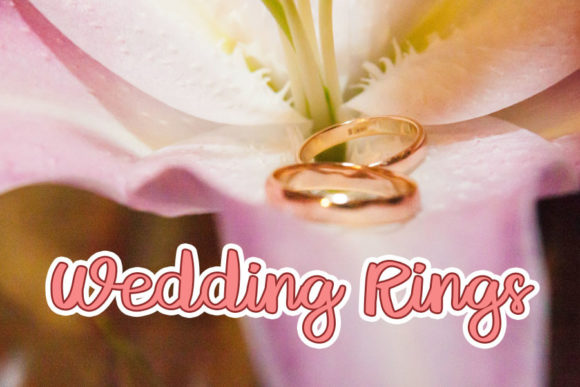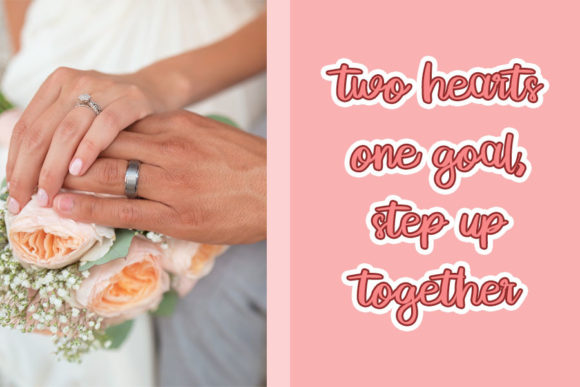
Love at First Sight Font
db-ku.com - Script & Handwritten -- Love at First Sight is a romantic and sweet calligraphy typeface with characters that dance along the baseline. It has a casual, yet elegant touch. It can be used for various purposes such as logos, wedding invitations, headings, t-shirts, letterhead, signage, labels, news, posters, badges and so much more.